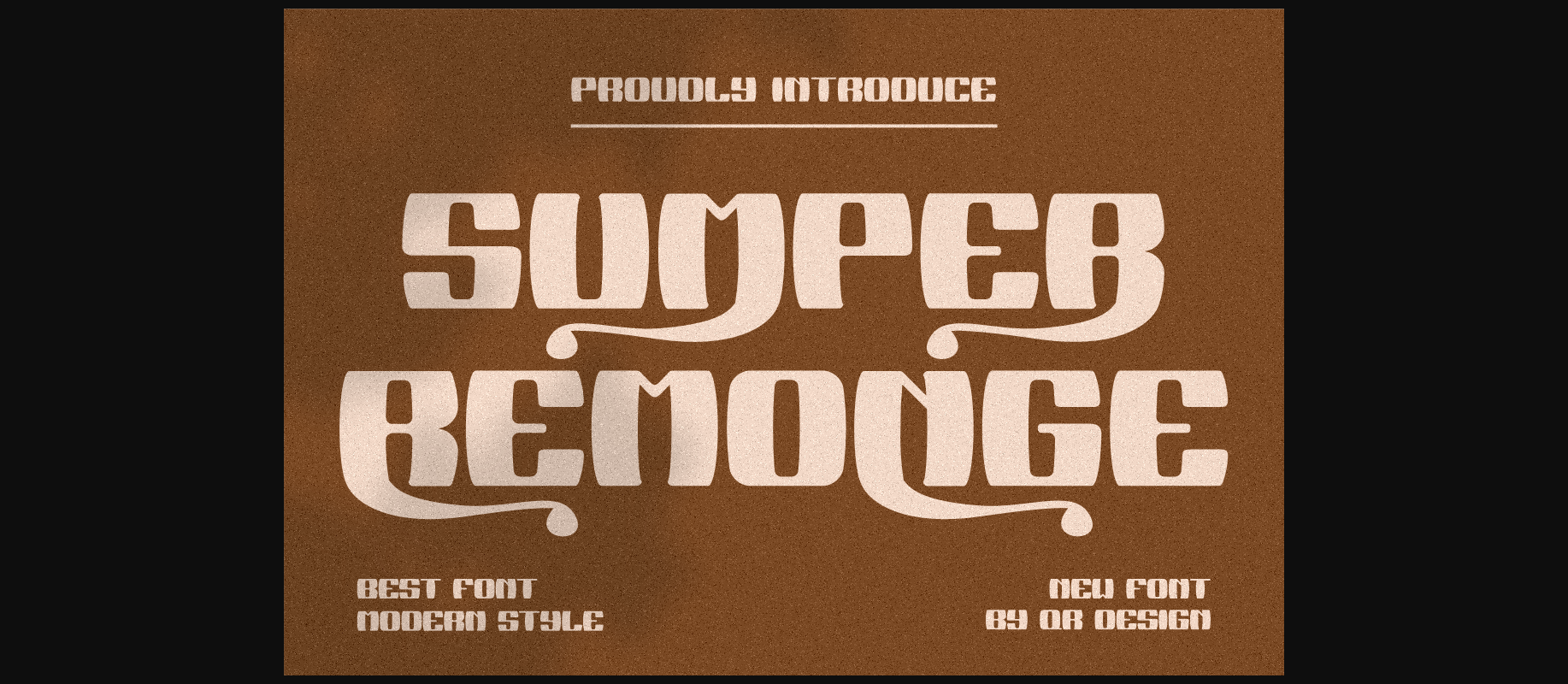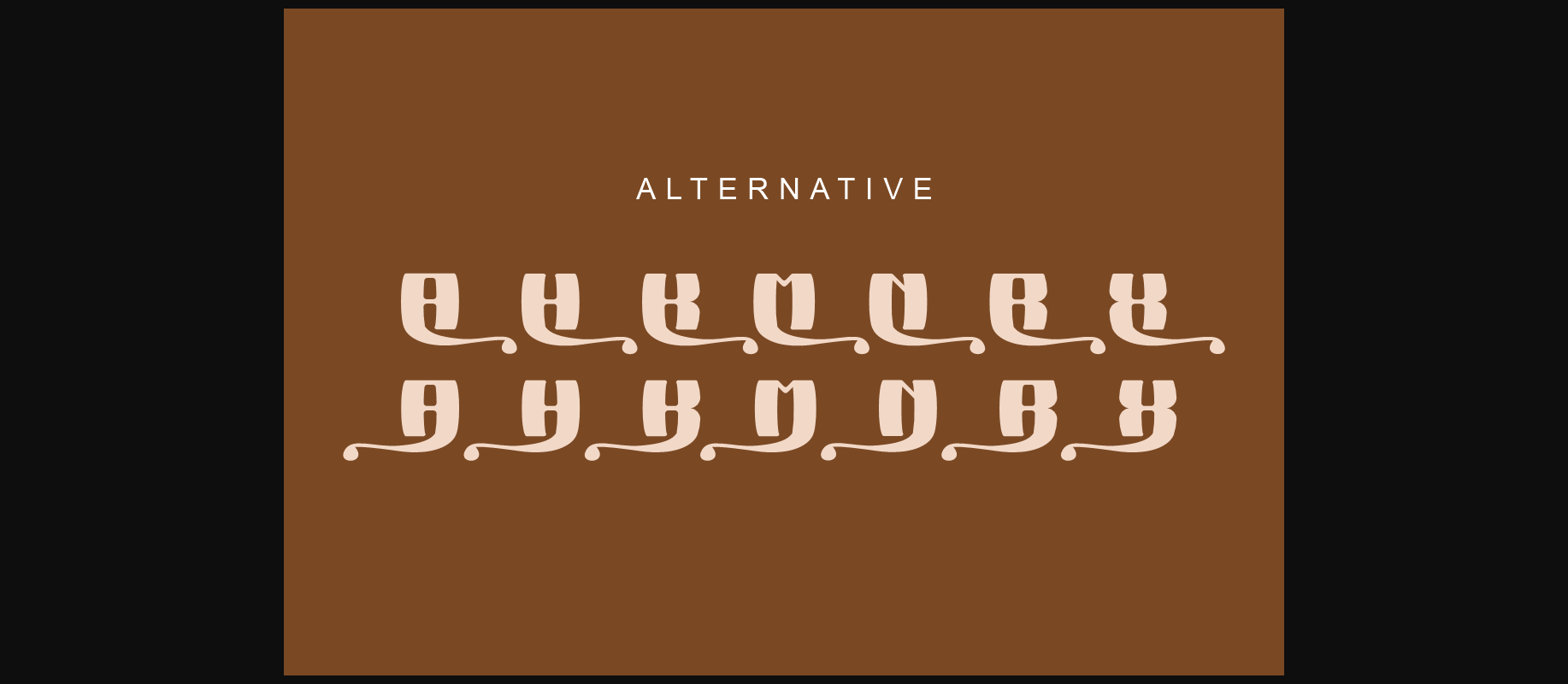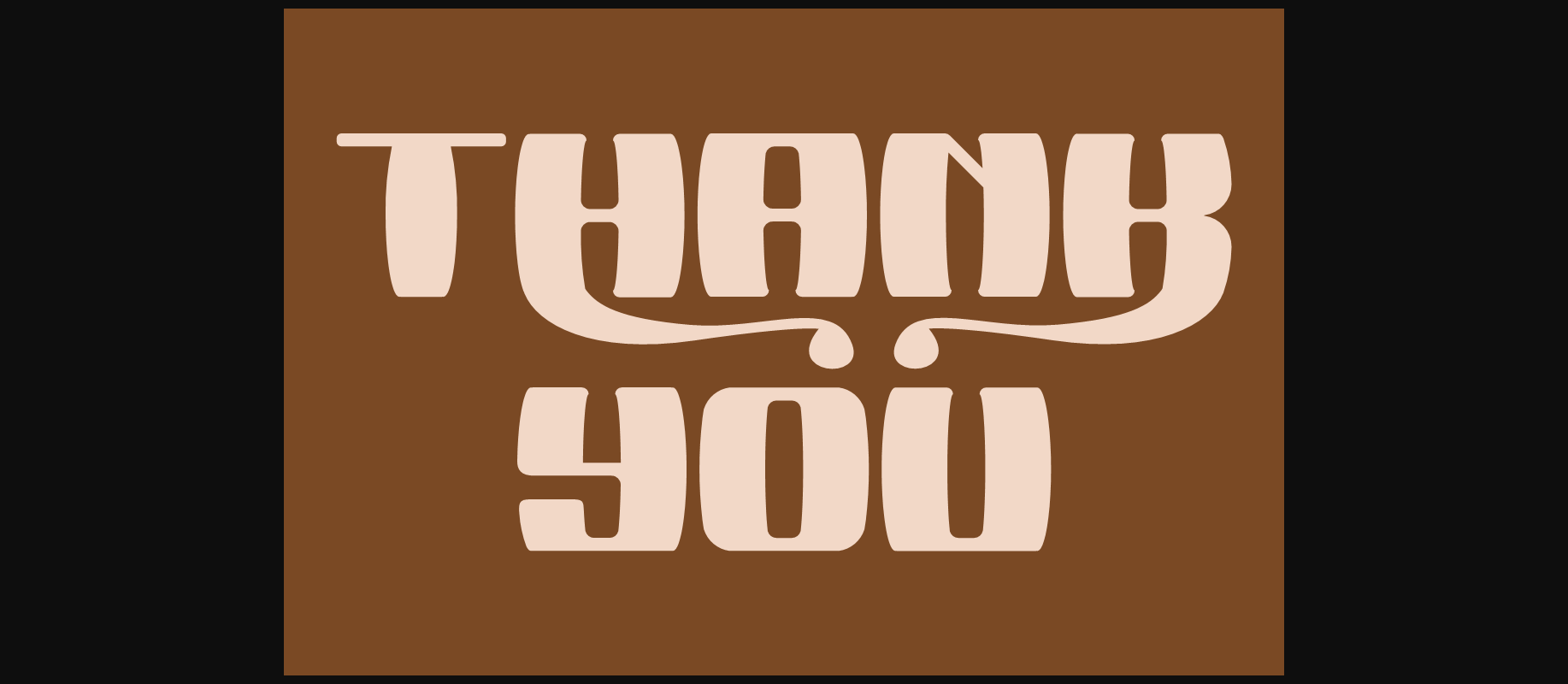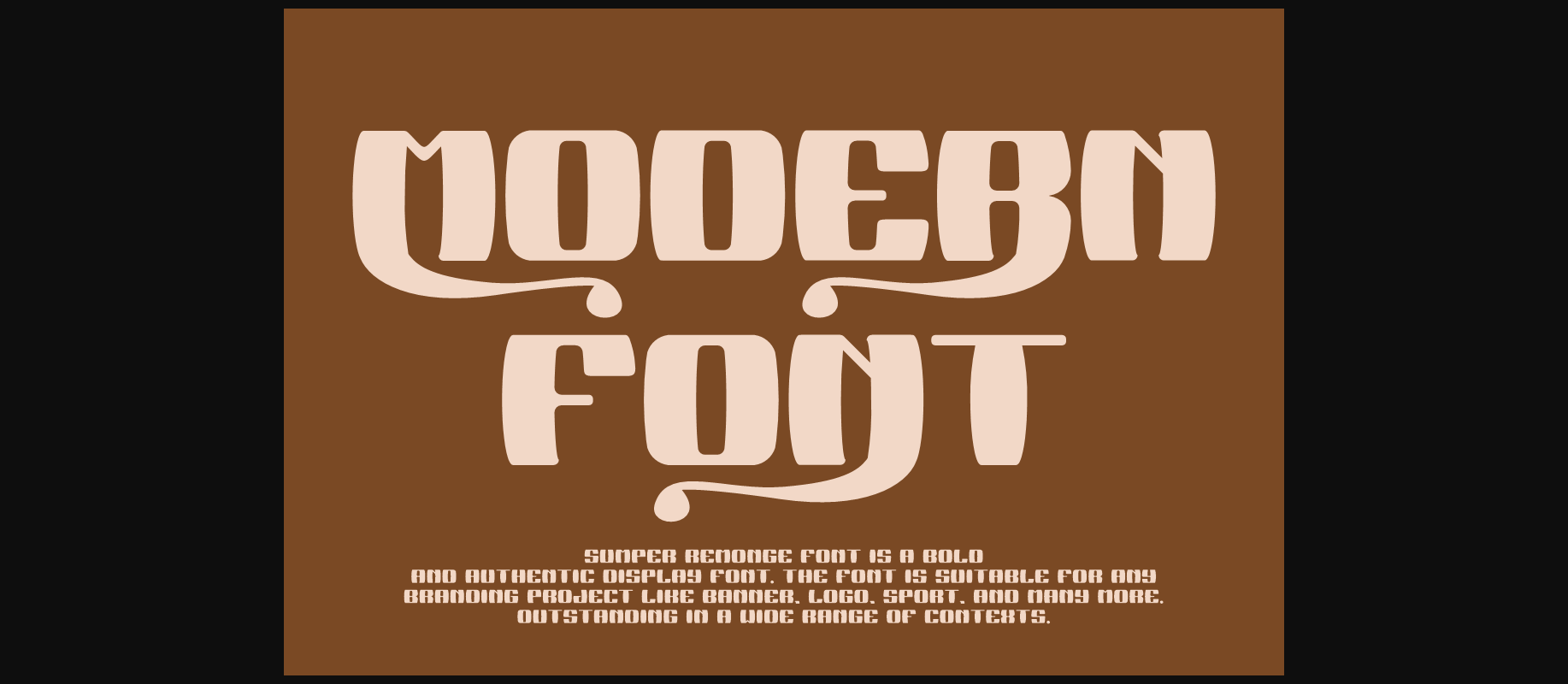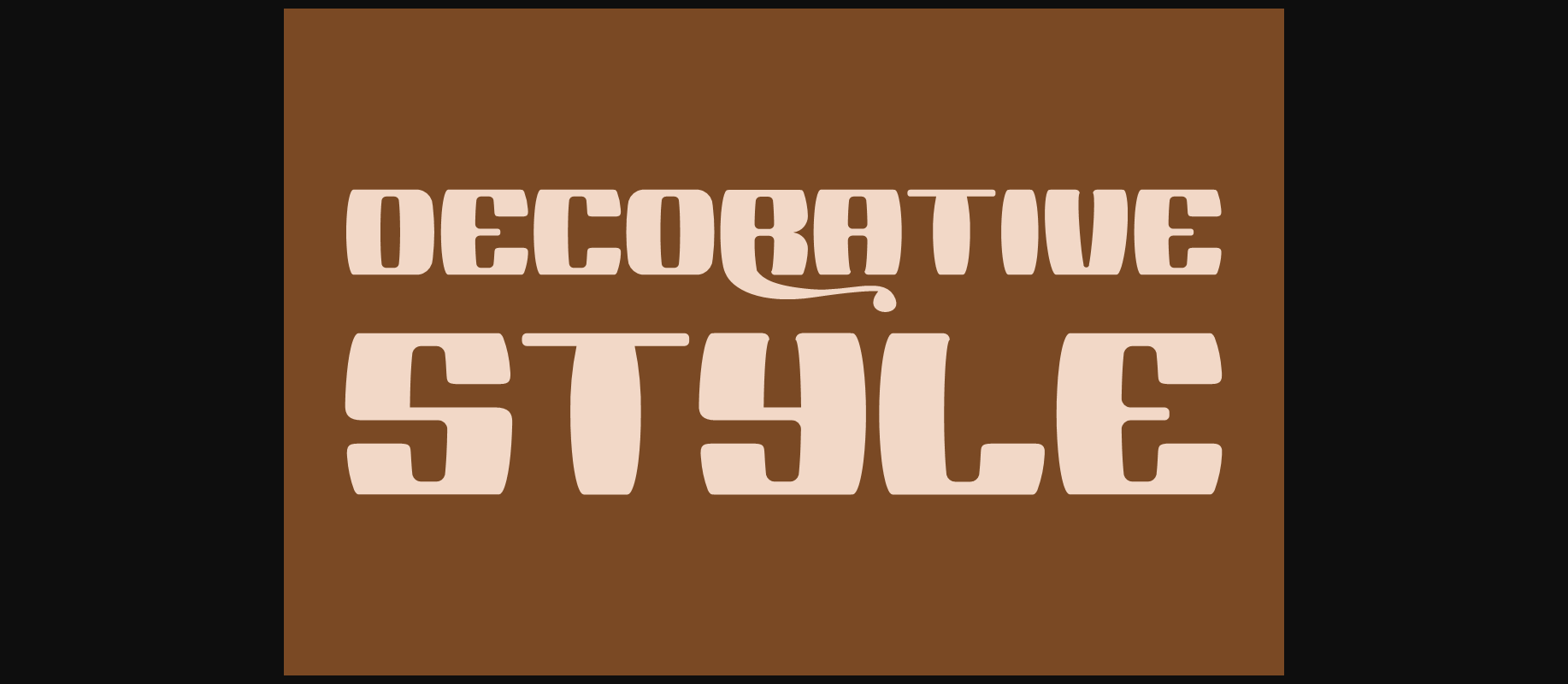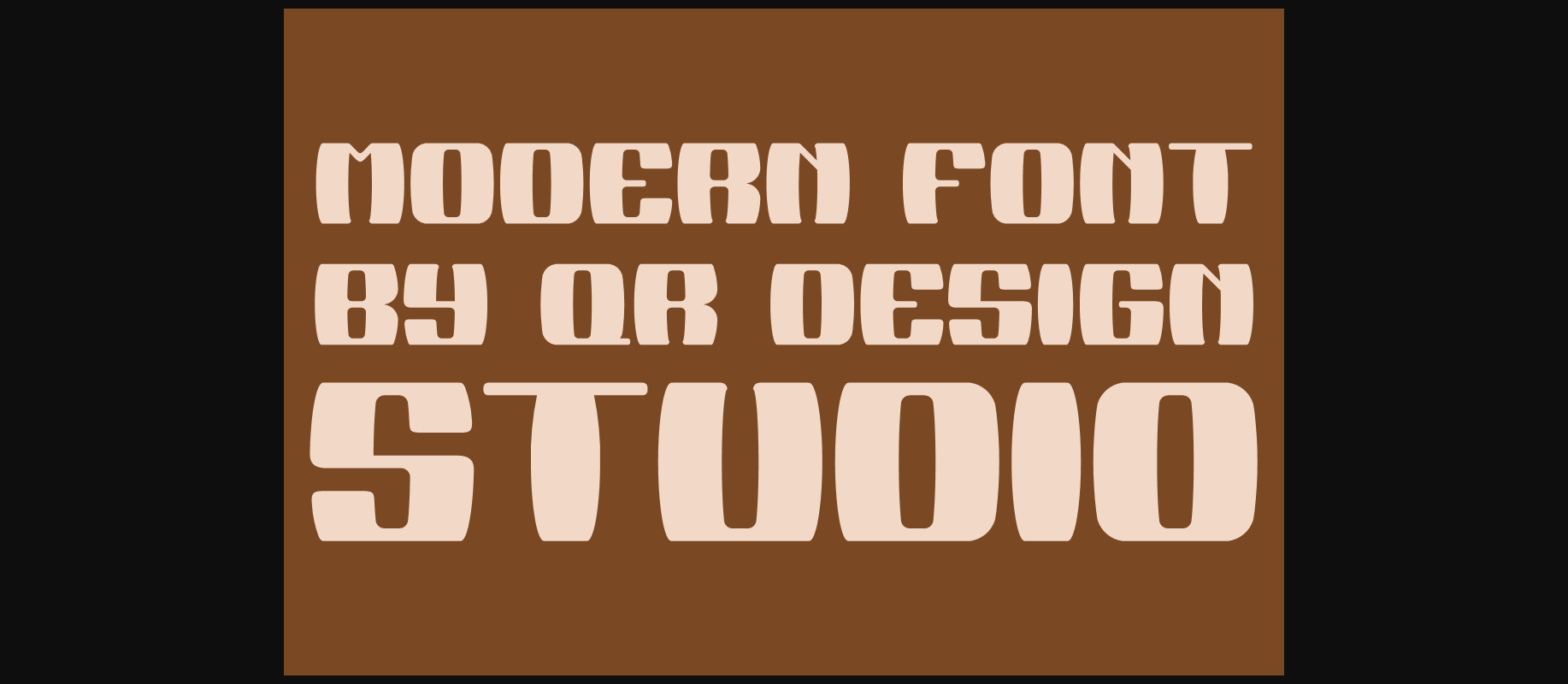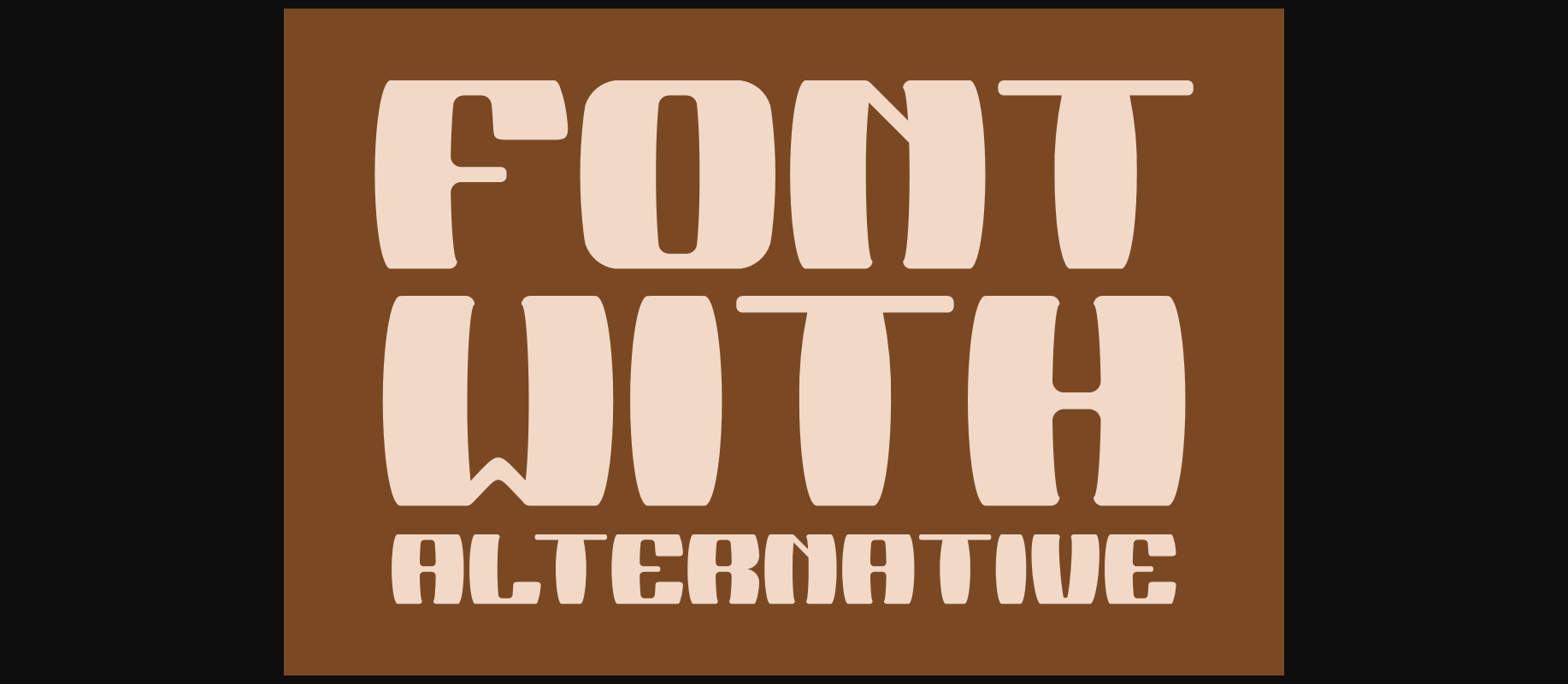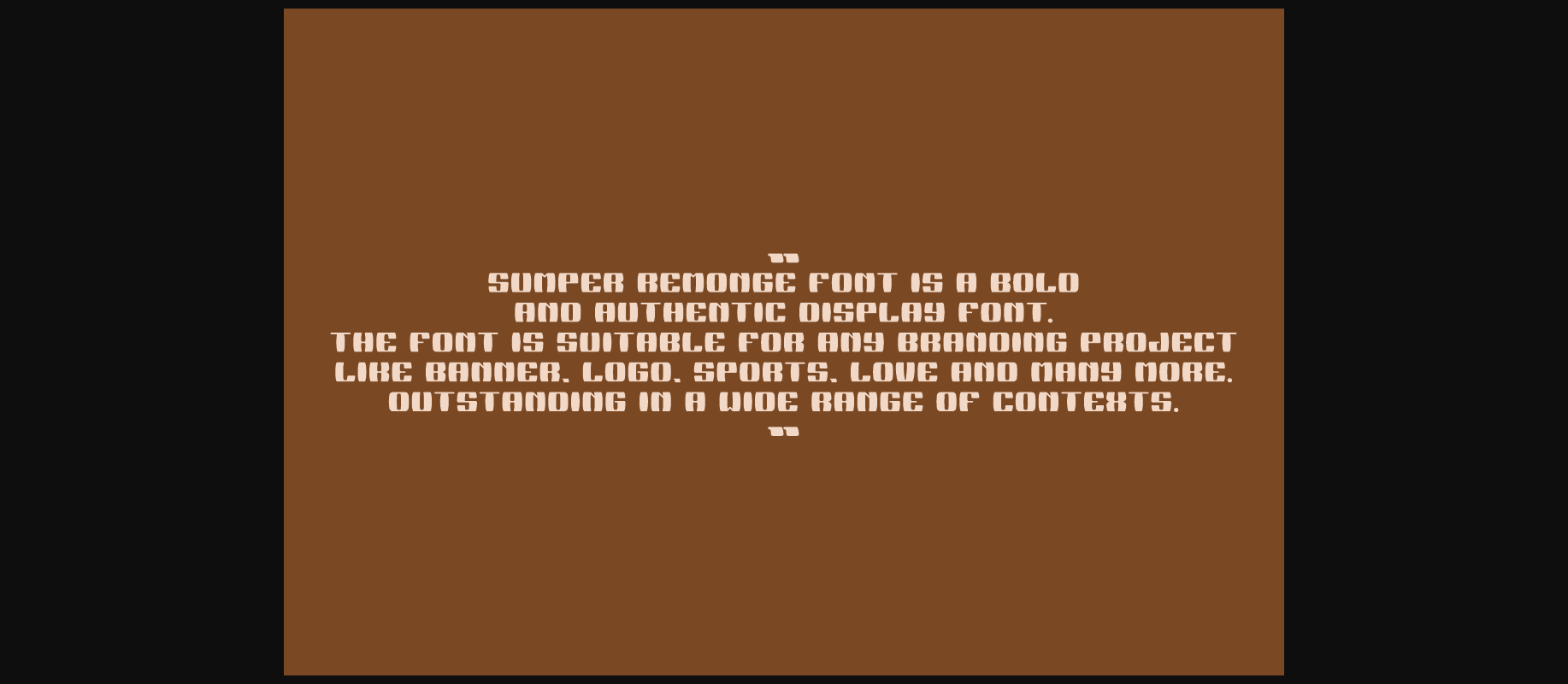
About Sumper Remonge Font
Sumper Remonge Font is a bold and authentic display font.
The font is suitable for any branding project like logos, sports, and many more.